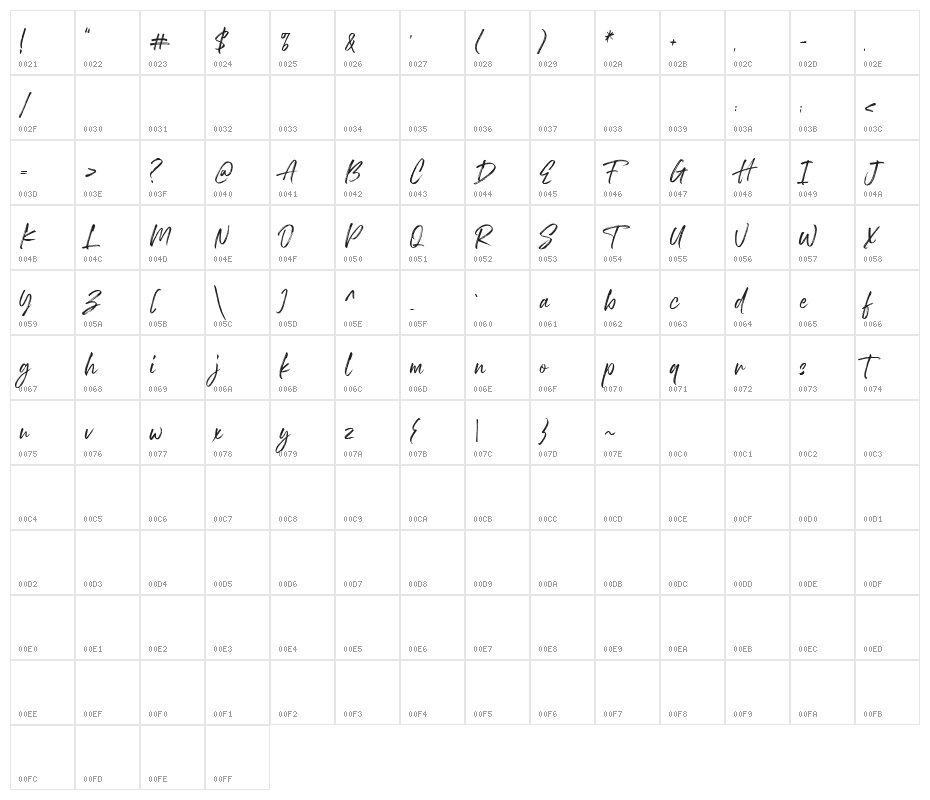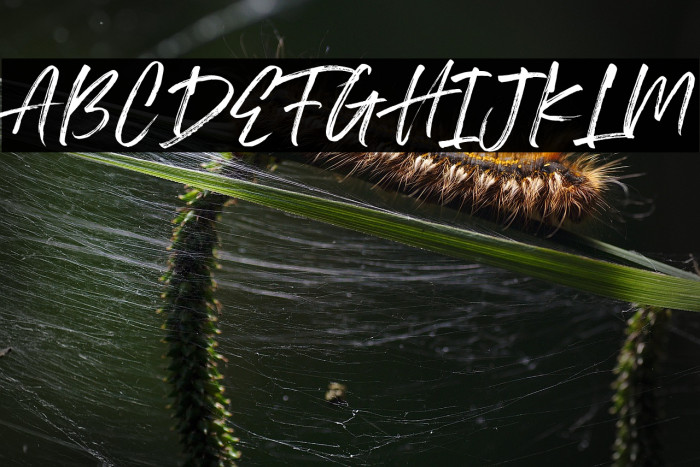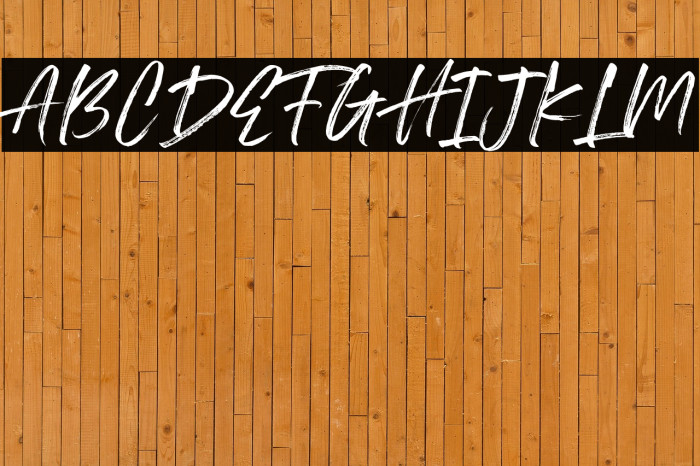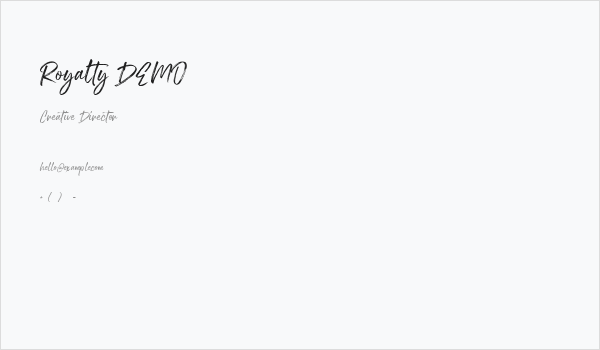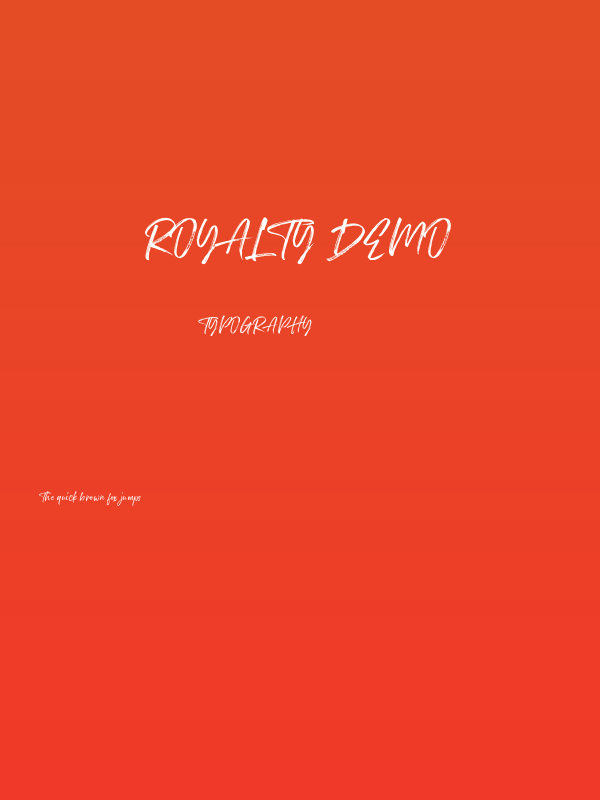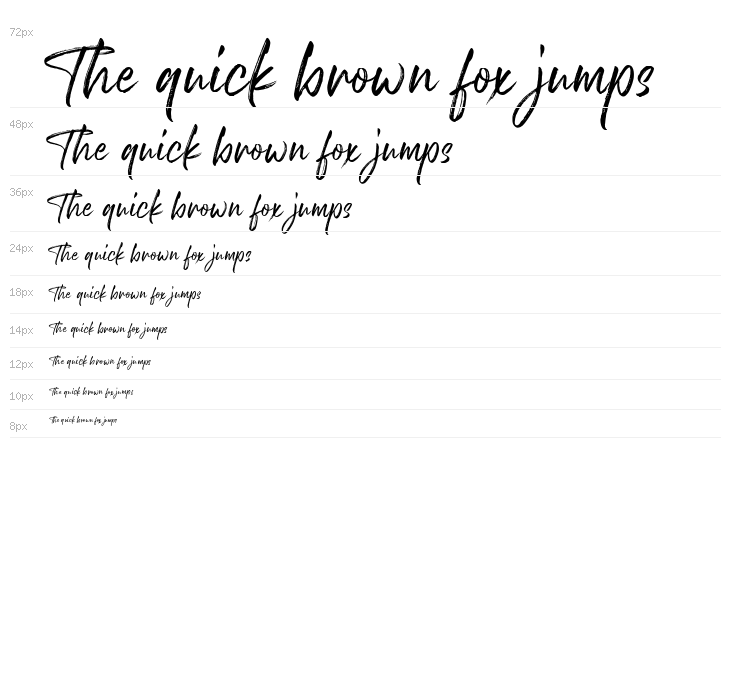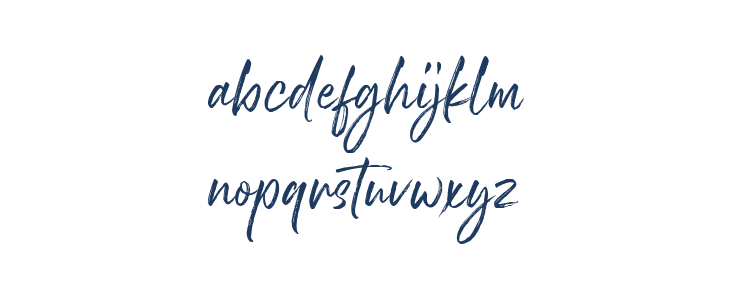
Royalty DEMO Font
Royalty DEMO Description
This font exudes a dynamic and expressive style, characterized by its brush-like strokes that convey a sense of movement and fluidity. The uppercase letters are bold and slightly slanted, giving them a sense of urgency and energy. The lowercase letters maintain a consistent flow, with elegant curves and loops that add a touch of sophistication. The numbers and special characters are crafted with the same attention to detail, ensuring a cohesive look across all elements. This font's artistic flair makes it ideal for projects that require a personal and creative touch.
| Proposed Projects | Ideal for branding, invitations, posters, and any design project that seeks to convey creativity and elegance. |